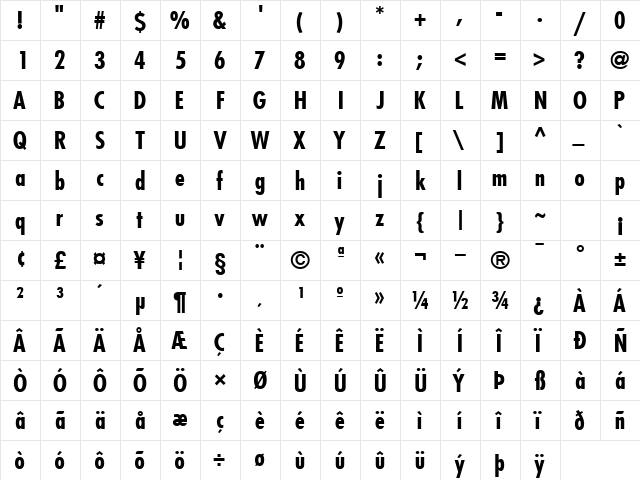
KudosBlackCondSSK Bold Font Preview
KudosBlackCondSSK Bold
Design Context for KudosBlackCondSSK Typeface
KudosBlackCondSSK is a composed and adaptable typeface that performs quietly and consistently across a wide range of design contexts. Its bold stroke weight gives it real presence on the page. Its narrow stance lets it pack a punch even in space-constrained designs.